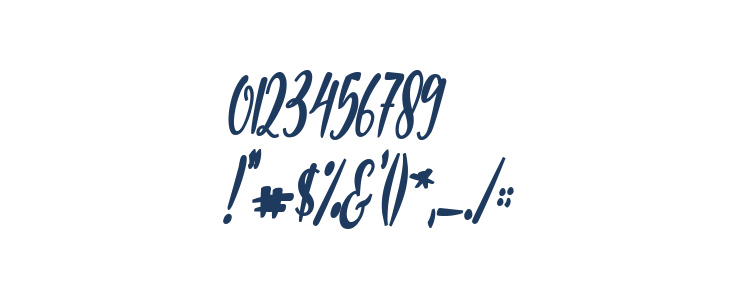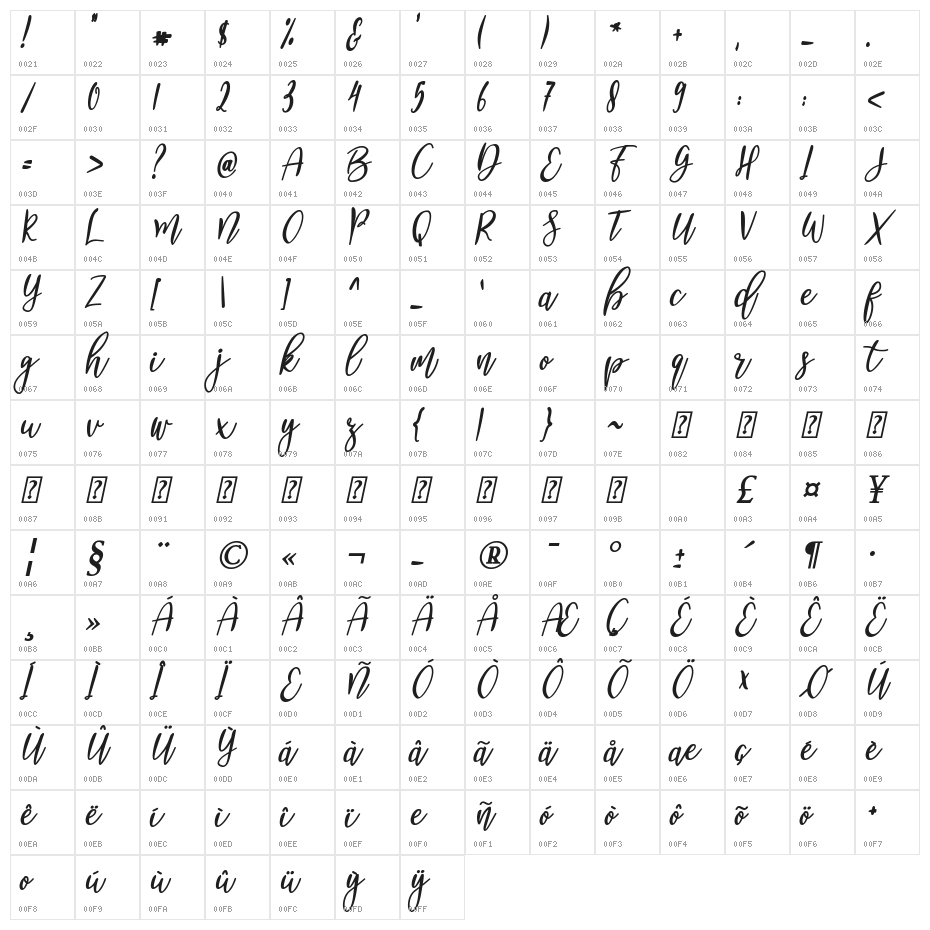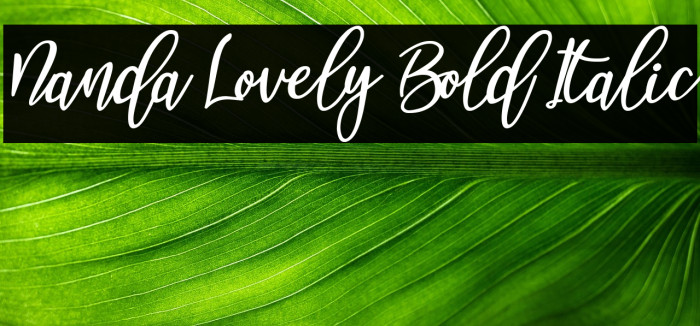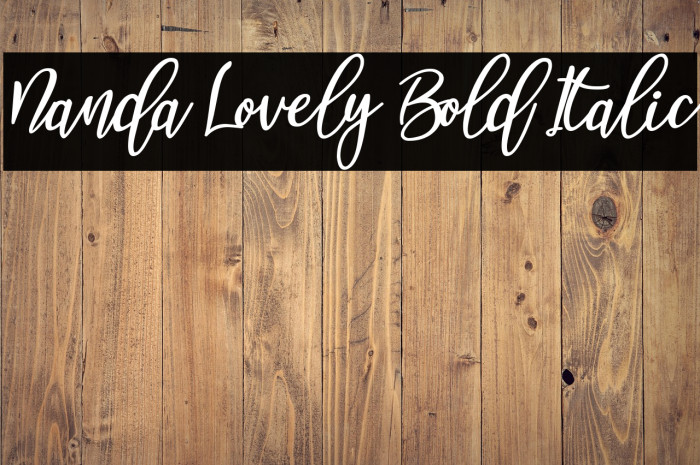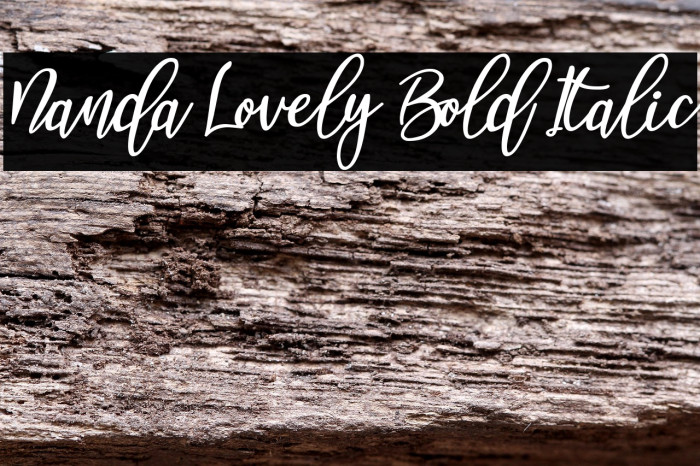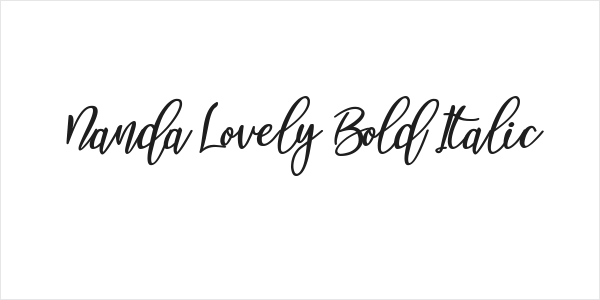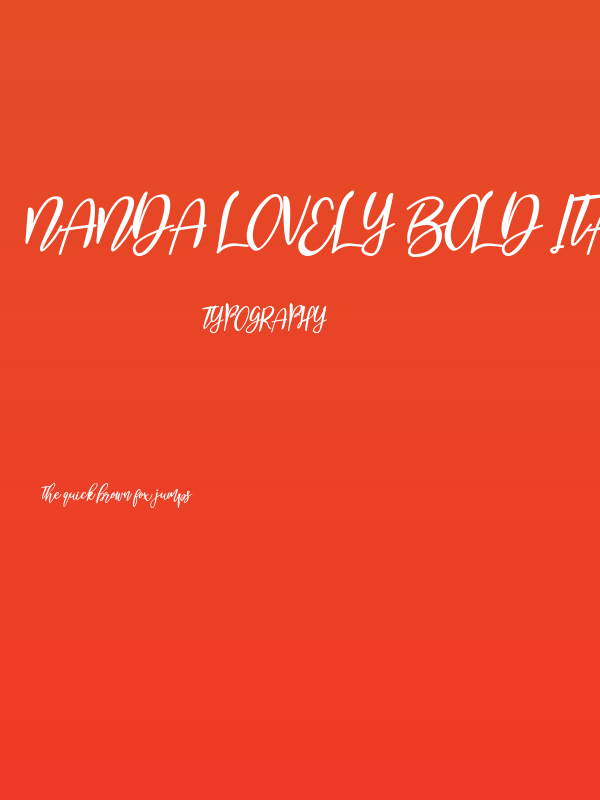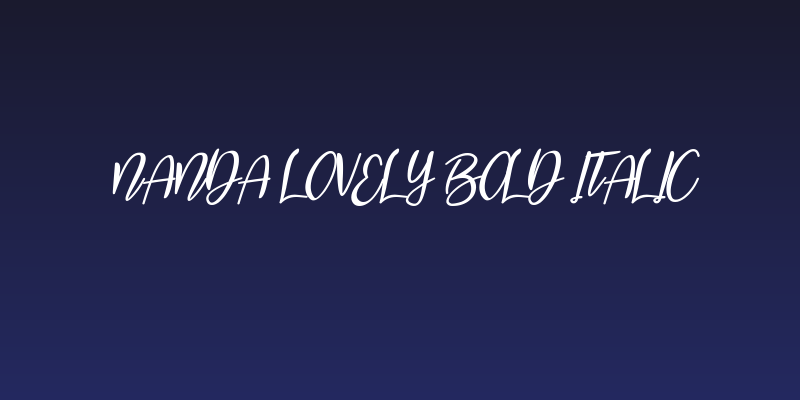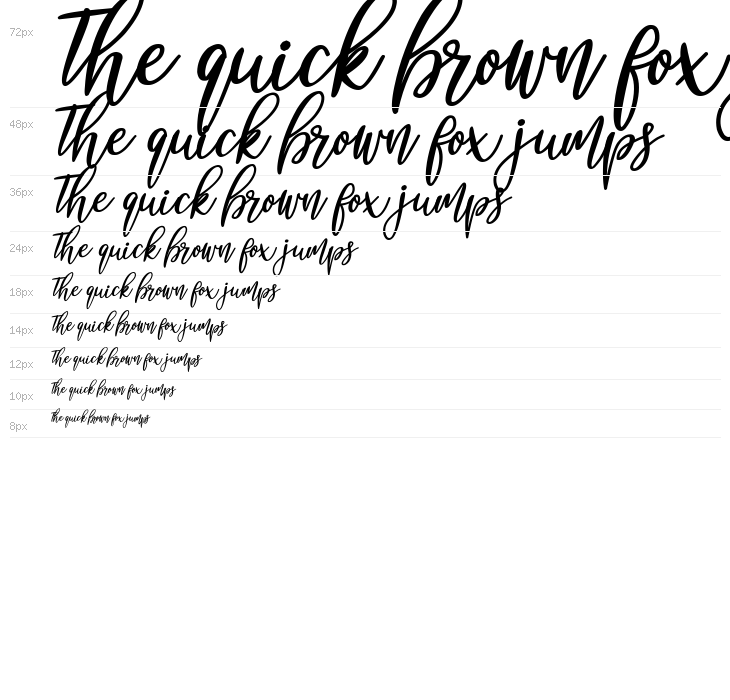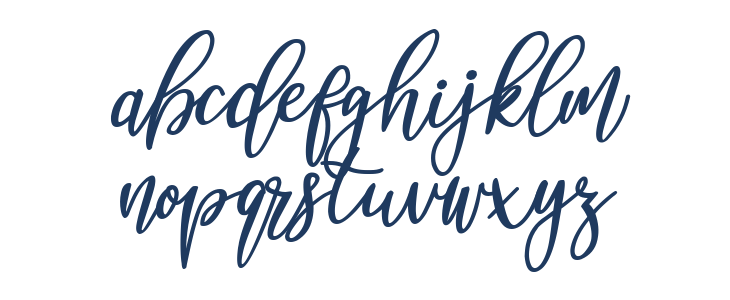
Nanda Lovely Bold Italic Font
Nanda Lovely Bold Italic Description
This font exudes a lively and dynamic personality, characterized by its bold and italicized script style. The letters are fluid and connected, creating a sense of movement and elegance. Each character is crafted with a smooth, flowing line that gives the font a handwritten appearance. The uppercase and lowercase letters maintain a consistent style, with the uppercase being slightly more pronounced. Numbers and special characters are also included, matching the overall aesthetic. The font's boldness ensures readability while maintaining its decorative appeal.
| Proposed Projects | Ideal for wedding invitations, greeting cards, branding projects, and any design that requires a personal, elegant touch. |